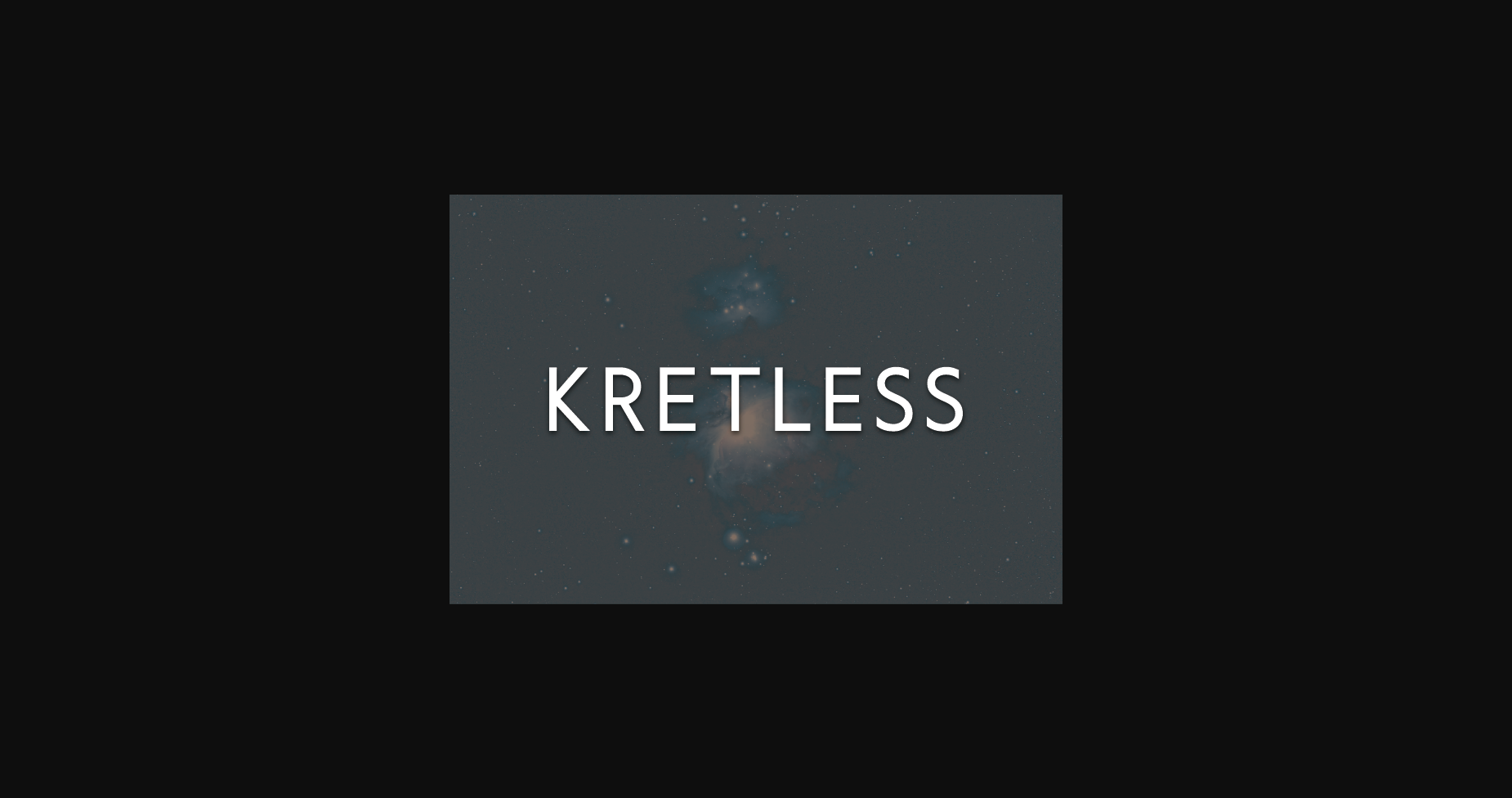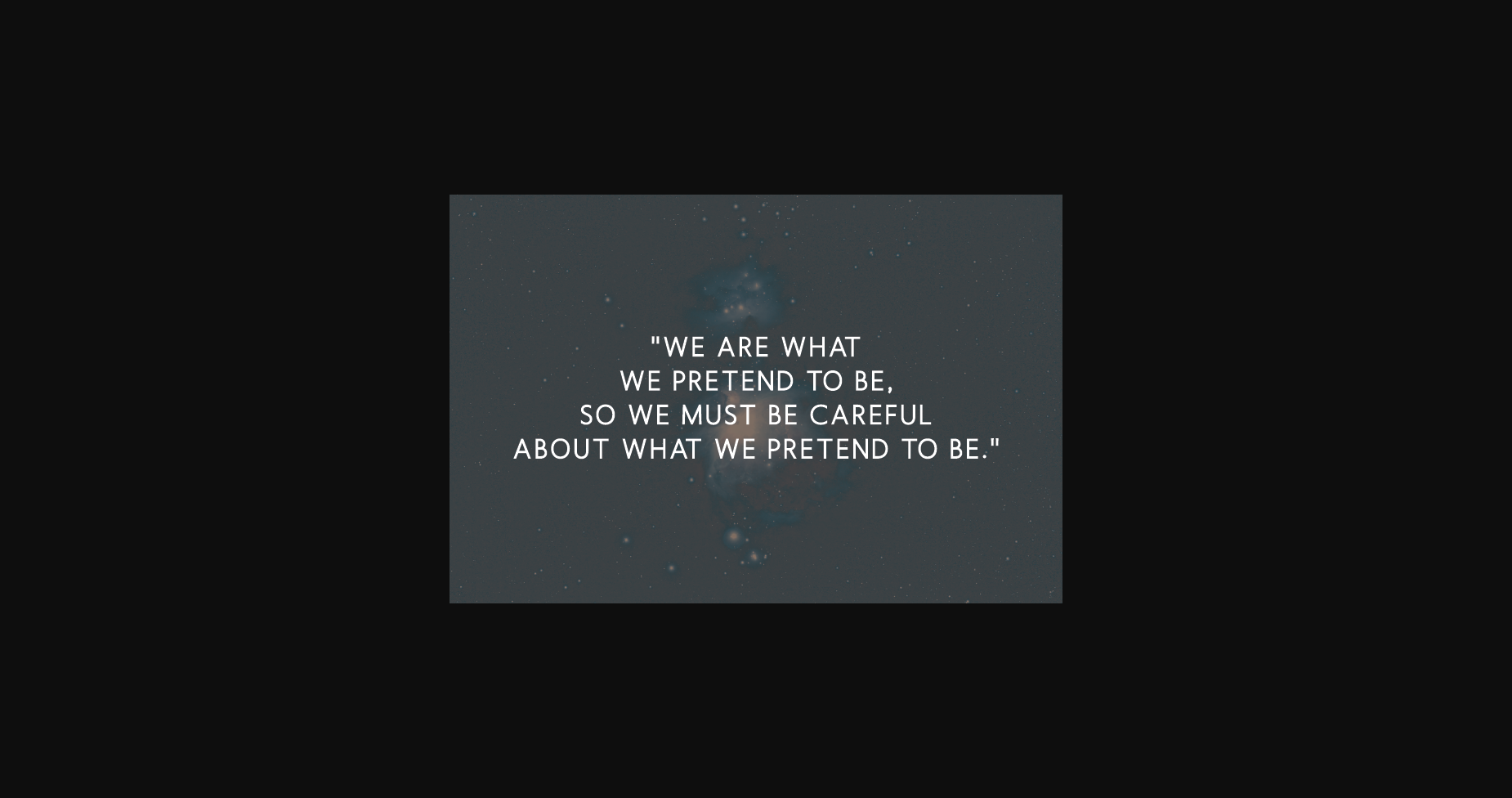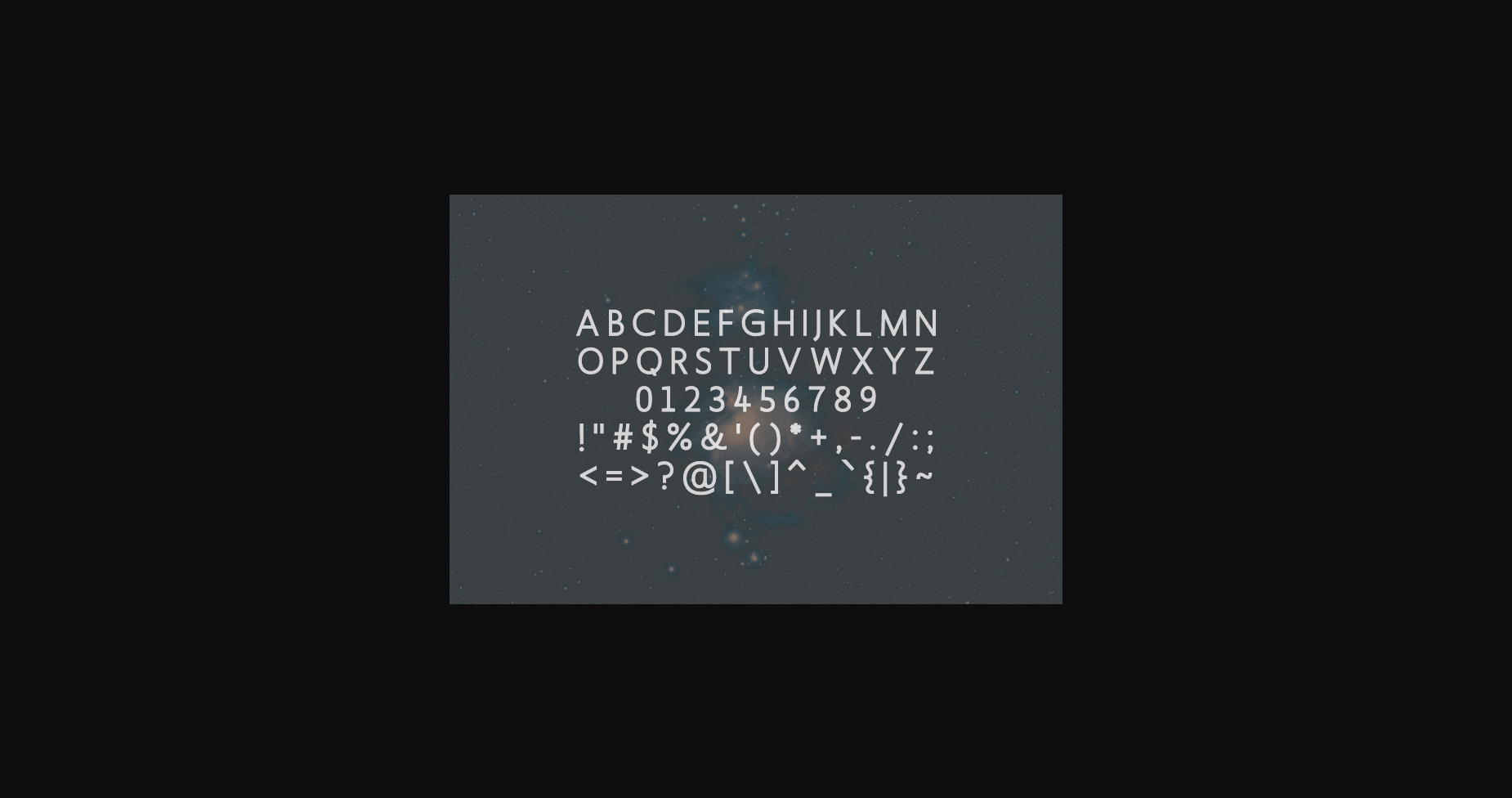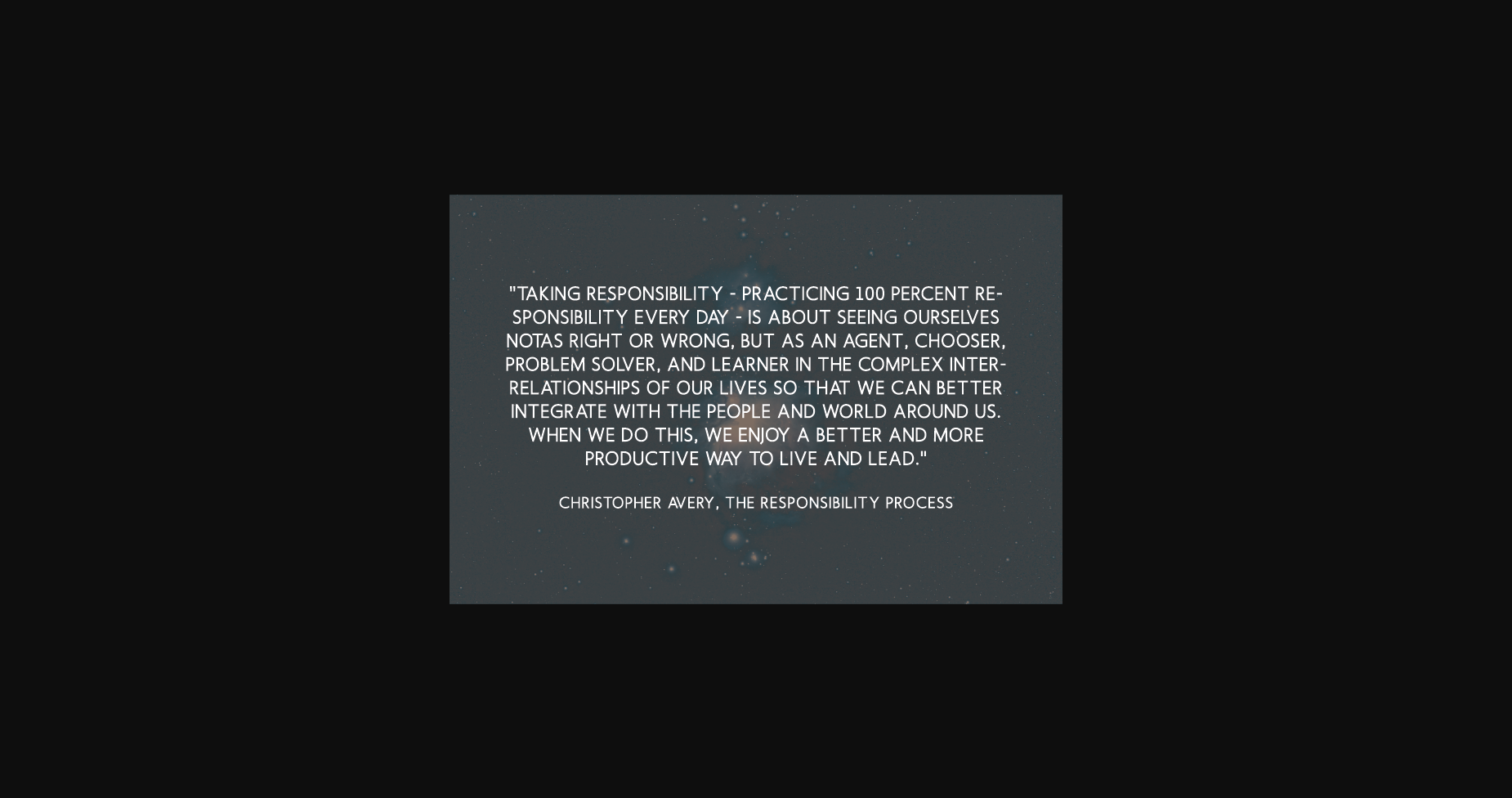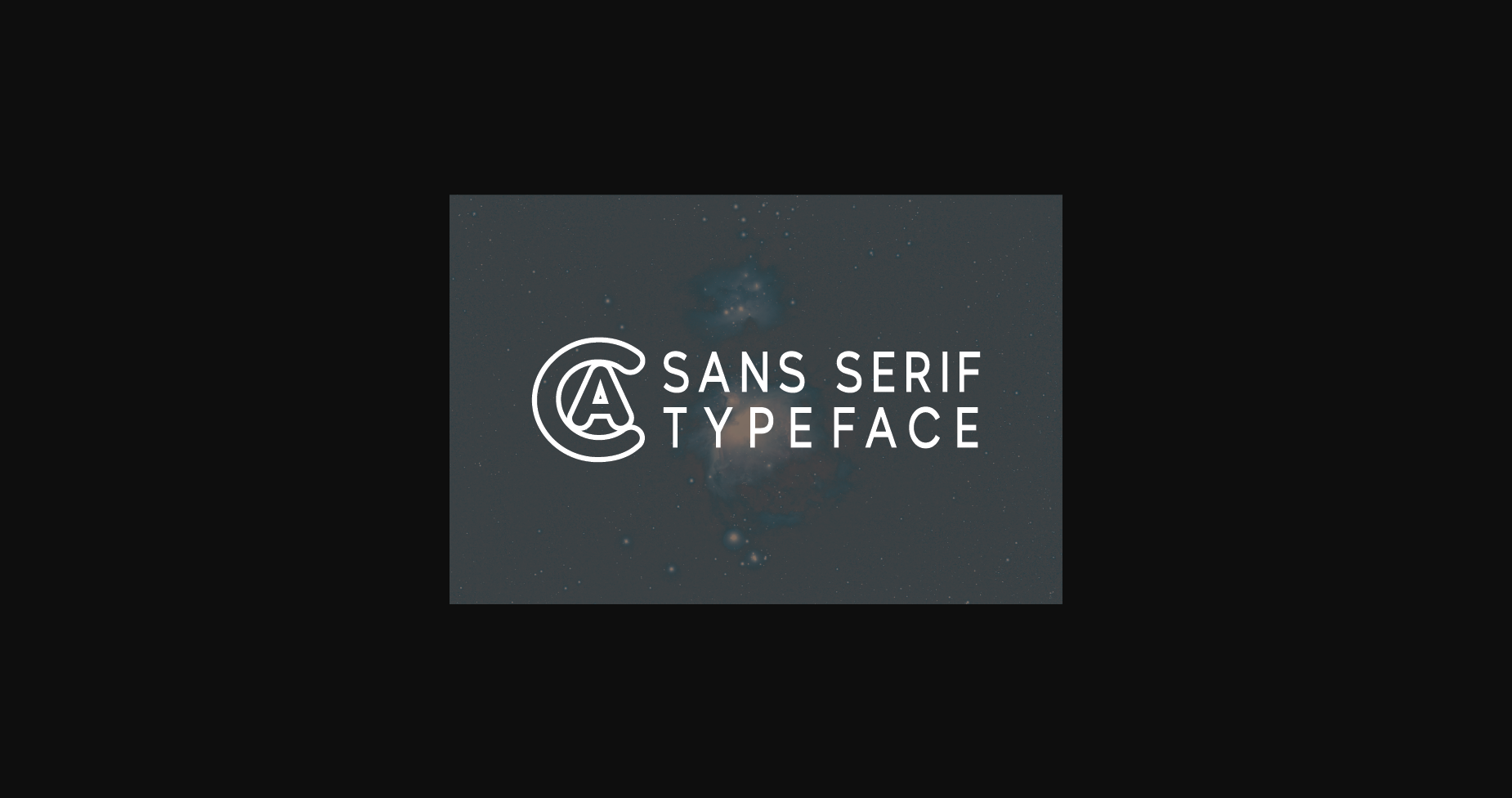
Kretless Font
About Kretless Font
Kretless is a modern and classy sans serif typeface. It is extremely versatile, perfect for logos, weddings, invitations, quotes, advertisements, print, magazines, and more!